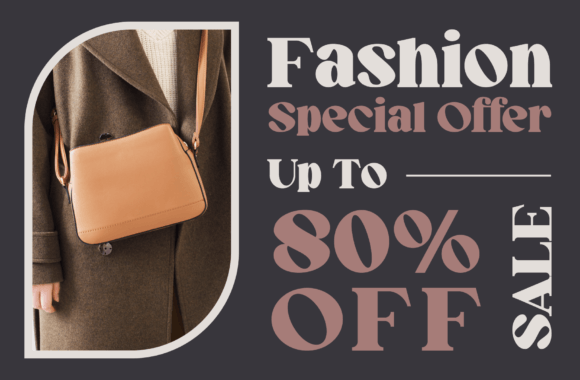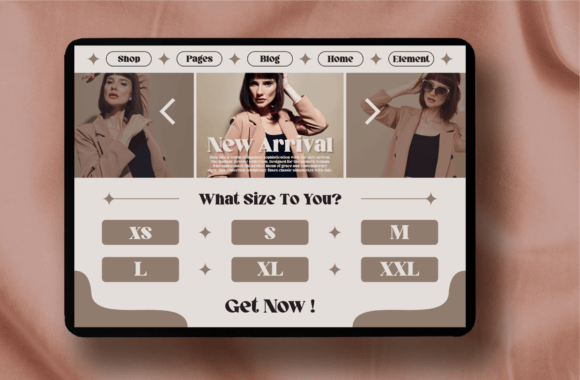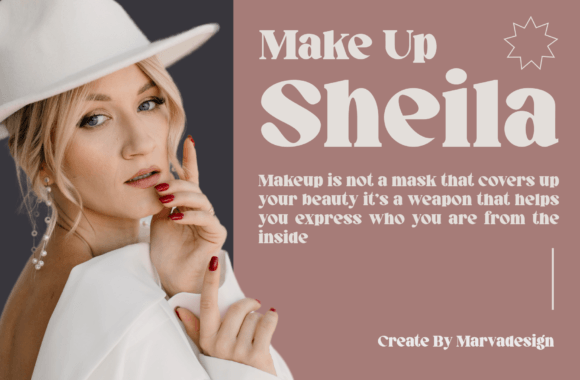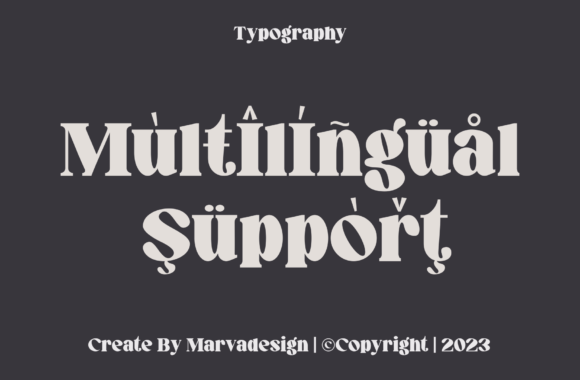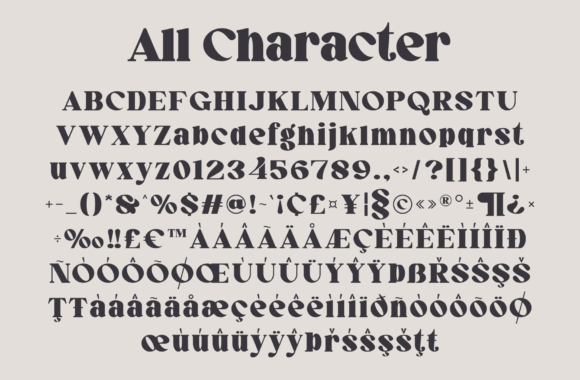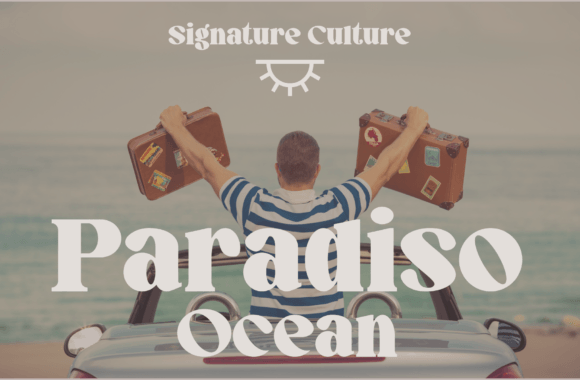
The Agior Font: Elevate Your Designs with Elegance and Sophistication
Have you ever been in the midst of working on a project, only to find yourself stuck on one thing: the perfect font? I recall a particularly frustrating experience while designing a wedding invitation for a client. The invitation needed to exude class, sophistication, and a touch of romance. After scouring through countless font libraries, I stumbled upon the Agior font. It was love at first sight! ✨ The elegant design, clean lines, and smooth curves instantly captured the essence of what I was looking for. In this article, we’ll dive into the world of Agior, exploring its features, uses, and some valuable tips for incorporating it into your designs.
An Honest Review of Agior Font
What I Love About Agior
- ✨ Elegant Design: Agior boasts a stylish and sophisticated serif design that adds a touch of class to any project.
- ✅ Versatility: Its clean lines and smooth curves make it perfect for a wide range of applications, from invitations and logos to branding and more.
- 🔍 Timeless Appeal: The font’s polished appearance ensures it remains relevant and stylish, even as design trends evolve.
While Agior is an exceptional font, there are a few minor considerations to keep in mind:
- 🤔 Limited Availability of OpenType Features: Compared to some other fonts, Agior’s OpenType features might be somewhat limited. However, it still offers enough flexibility for most design needs.
- ⚠️ Legibility at Small Sizes: Like many serif fonts, Agior may lose some legibility when used at very small sizes. It’s best used at larger sizes where its elegance can shine.
The Backstory of Agior Font
Agior was designed with the intention of creating a font that embodies elegance and sophistication. Its creator aimed to produce a typeface that would be both timeless and versatile, suitable for a wide range of design applications. While the specific details about the designer might be scarce, the font’s aesthetic suggests a deep understanding of classic typography with a modern twist.
Q: What makes Agior suitable for branding?
A: Agior’s elegant design, clean lines, and sophisticated look make it an excellent choice for branding, helping to create a polished and refined image for any brand.
Q: Can I use Agior for body text?
A: While Agior is primarily designed for headlines and titles, its legibility and classic look also make it suitable for body text, especially in larger sizes or in publications where a sophisticated tone is desired.
Q: Is Agior a versatile font?
A: Yes, Agior is highly versatile. Its design allows it to be used in various contexts, from digital media to print, and across different design applications such as logos, invitations, and more.
Q: Does Agior support OpenType features?
A: Agior does offer some OpenType features, though it might not have an extensive range. It’s best to check the specific features available to ensure they meet your design needs.